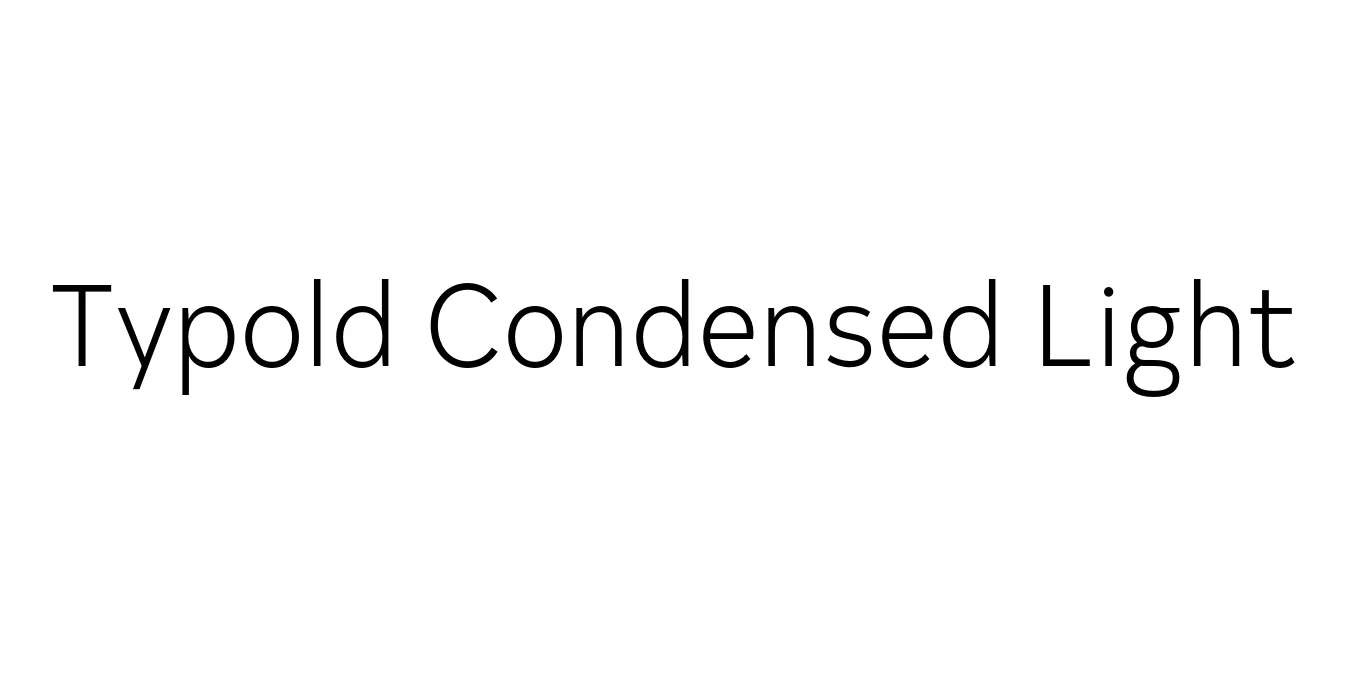
Typold Condensed Light
Designed by Jonathan Hill
Typold Condensed Light is a refined extension of the Typold family, designed by Jonathan Hill for The Northern Block. This typeface represents a modern evolution of the geometric sans-serif, utilizing mathematical precision to create a clean, balanced aesthetic. The condensed nature of this specific variant allows for high-impact communication in tight spaces, making it an essential tool for designers who require efficiency without losing the elegance of a geometric form.
The Light weight offers a sophisticated and airy appearance that is particularly effective in high-end branding and technical documentation. Its construction features open counters and a vertical emphasis, ensuring that the font remains legible even at smaller sizes. As part of a larger, versatile family, Typold Condensed Light bridges the gap between industrial rigidity and humanistic warmth, making it suitable for a wide range of contemporary applications across digital and print media.
Typold Condensed Light Best Uses
Excellent for magazine headlines and pull quotes where horizontal space is at a premium.
Provides a clean, professional look for modern logotypes and identity systems.
Perfect for sleek, modern hero sections and navigational elements on websites.
Highly effective for compact user interfaces and clear information hierarchy.